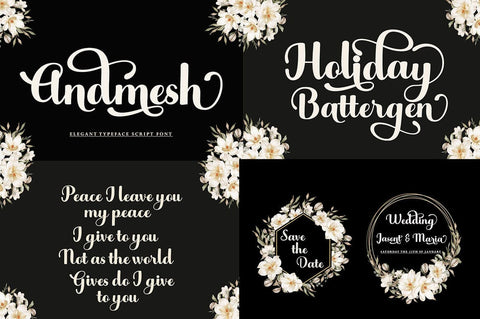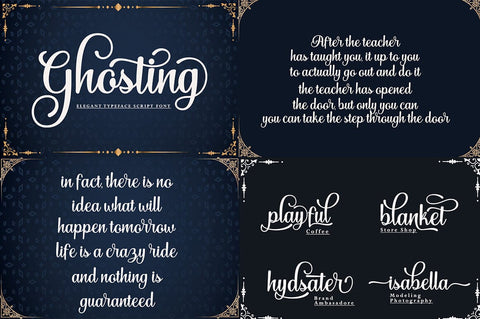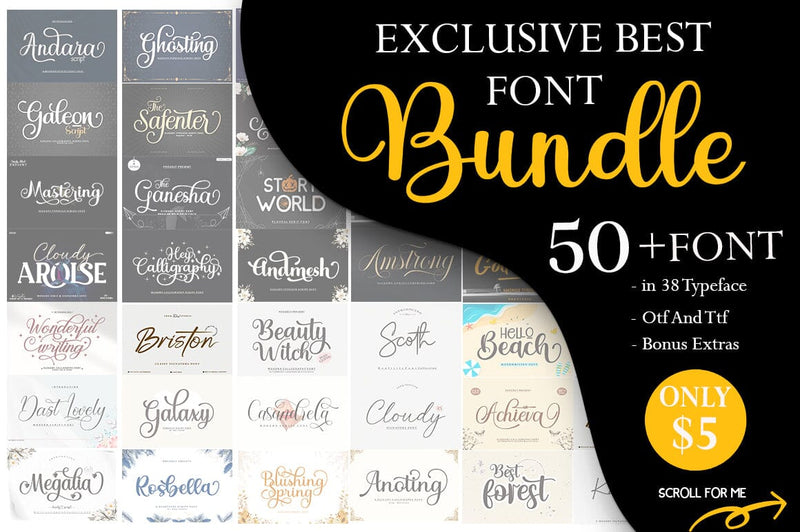
Exclusive Best Font Bundle
This is your chance to get all my fonts at a super low price for $10! Includes 50 Fonts in 39 typefaces . This bundle includes a varied range of font styles such as, calligraphy, signature, brush lettering, hand lettering and more. with hundreds of glyphs, including alternates, ligatures, swashes, and international language support.